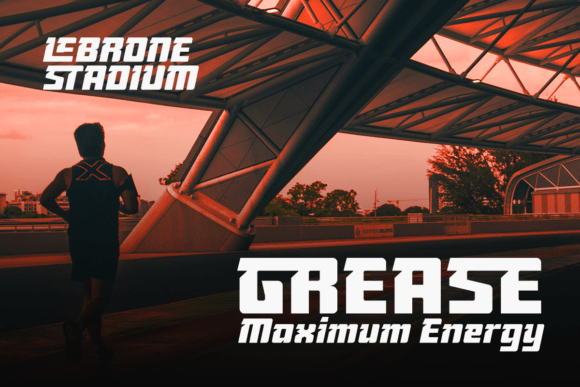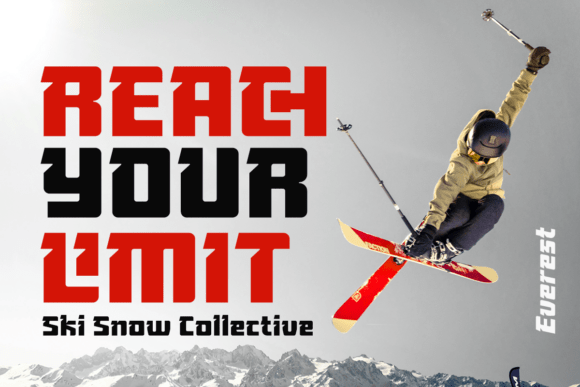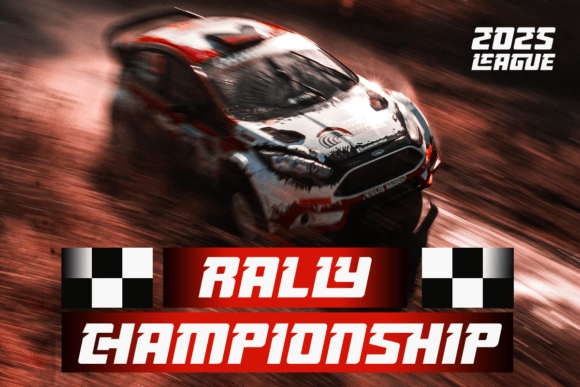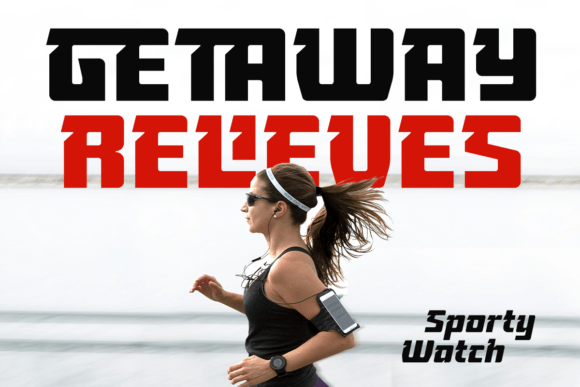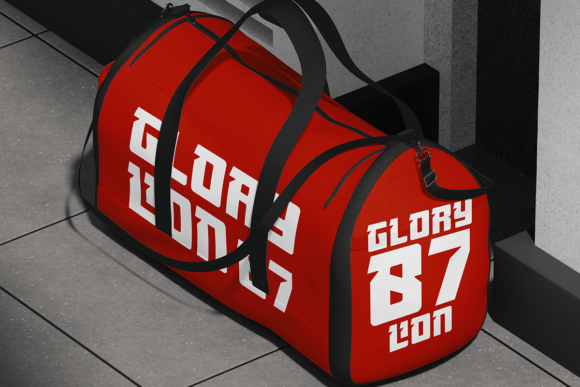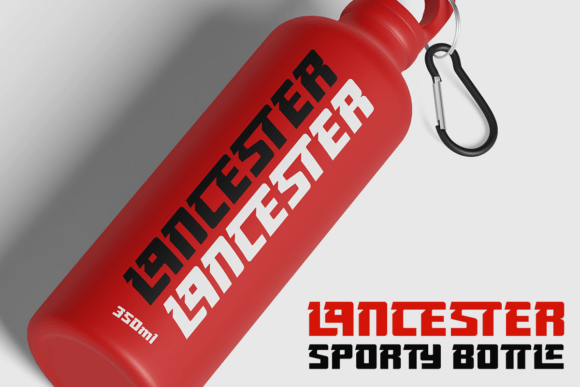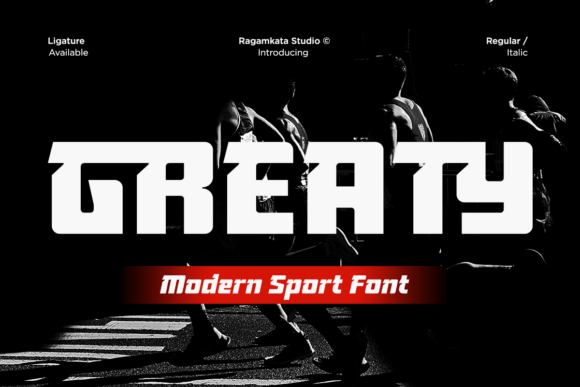
Unleash Your Design Potential with Greaty Font
Are you looking for a modern, high-performance typeface that can elevate your visual identities to the next level? Look no further than Greaty Font, a cutting-edge sport typeface designed to push the limits of speed and power. With its aggressive letterforms, sharp terminals, and industrial strength aesthetic, Greaty Font is the perfect choice for designers who want to create bold, attention-grabbing designs.
Key Features of Greaty Font
Greaty Font boasts a range of features that make it an ideal choice for designers. Some of its key features include:
- Wide, aggressive letterforms: Greaty Font’s letterforms are designed to evoke a sense of forward motion and industrial strength, making it perfect for racing logos, fitness app interfaces, and bold energy drink packaging.
- Sharp, slanted terminals: The sharp, slanted terminals of Greaty Font add to its dynamic and high-performance aesthetic, giving your designs a cutting-edge look.
- Regular and italic versions: Greaty Font includes both regular and italic versions, allowing you to fine-tune the “velocity” of your message and create a range of different design options.
Design Inspiration with Greaty Font
Greaty Font is designed to be versatile and adaptable, making it perfect for a range of design applications. Here are some design inspiration ideas to get you started:
- Racing logos: Use Greaty Font to create bold, high-performance racing logos that capture the speed and power of your brand.
- Fitness app interfaces: Greaty Font’s modern and dynamic aesthetic makes it perfect for fitness app interfaces, adding a touch of energy and motivation to your design.
- Energy drink packaging: Create bold and eye-catching energy drink packaging with Greaty Font, perfect for grabbing the attention of active and health-conscious consumers.
- E-sports tournaments: Use Greaty Font to create a cutting-edge, tech-forward look for your e-sports tournament designs, perfect for dominating the competition.
Pairing Greaty Font with Other Design Elements
To get the most out of Greaty Font, try pairing it with other design elements that complement its modern and dynamic aesthetic. Here are some suggestions:
- Dark, high-contrast photography: Pair Greaty Font with dark, high-contrast photography to create a bold and dramatic look that grabs attention.
- Neon accents: Add a touch of neon accents to your design to create a cutting-edge, tech-forward look that’s perfect for e-sports tournaments and energy drink packaging.
Why Choose Greaty Font?
So why choose Greaty Font for your design projects? Here are just a few reasons:
- High-performance aesthetic: Greaty Font’s aggressive letterforms and sharp terminals create a high-performance aesthetic that’s perfect for sports and fitness designs.
- Versatility: Greaty Font is designed to be versatile and adaptable, making it perfect for a range of design applications.
In conclusion, Greaty Font is a modern sport typeface that’s designed to push the limits of speed and power. With its aggressive letterforms, sharp terminals, and industrial strength aesthetic, Greaty Font is the perfect choice for designers who want to create bold, attention-grabbing designs. Whether you’re designing for a professional sports franchise or an e-sports tournament, Greaty Font provides the heavy-duty impact and technical precision needed to dominate the field.